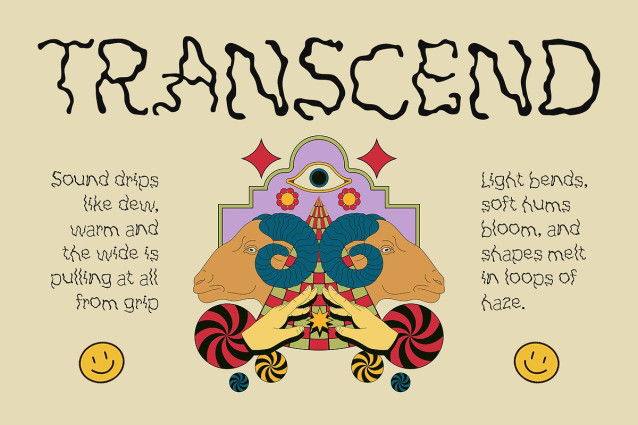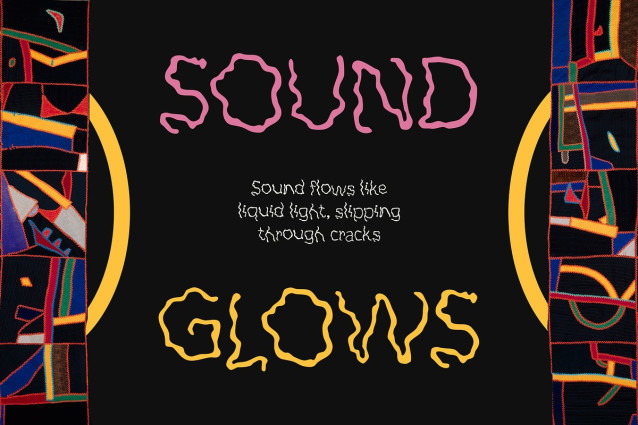
CS Alfred Font
CS Alfred Font is a display font that fuses modern typographic design with the spontaneous energy of hand-drawn strokes. Featuring an etchy, sketched texture, its letterforms are raw yet deliberate—perfectly balancing messy charm with visual clarity. Each letter feels like a piece of expressive artwork, giving the font an unpolished yet confident personality.
Funky and Cheerful Aesthetic This font brings a funky, cheerful vibe that instantly energizes any design. Its playful attitude makes it stand out, evoking the carefree creativity of artistic doodles and DIY visuals. The joyful, imperfect forms capture a sense of freedom and fun.
Sketchy, Expressive Strokes for Authenticity With its visibly etched lines and uneven contours, CS Alfred adds a handcrafted authenticity to your work. The rough textures offer a refreshing break from the overly clean and mechanical fonts, creating a more relatable and human feel. It’s ideal for expressing individuality, spontaneity, and vibrant personality in visual storytelling.
Perfect for Bold and Artistic Design Projects CS Alfred is made for projects that demand attention—art posters, album covers, fashion lookbooks, youth-centric branding, and lifestyle packaging. Its joyful spirit and bold strokes are designed to leave a lasting impression, helping your creative vision stand out in a saturated visual world.